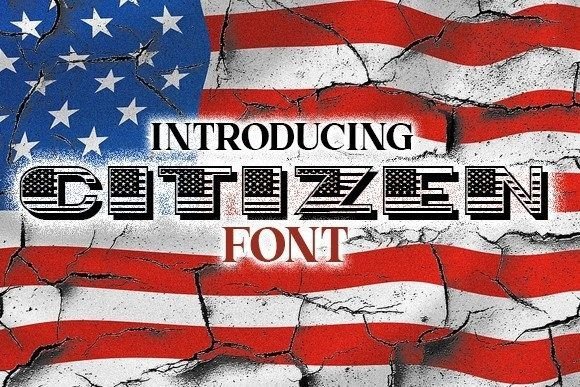
The Power of Typography: Unlocking the Beauty of Citizen Font
Have you ever stared at a blank page, trying to find the perfect font to bring your design to life? The search can be daunting, but what if I told you there’s a font that’s about to become your new best friend? Citizen Font is here to revolutionize the way you create stunning visuals, and trust me, it’s about to become your go-to choice.
This decorative font is a game-changer for designers, offering a unique blend of style and sophistication that’s perfect for posters, headlines, flags, and more. Whether you’re working on a personal project or a professional assignment, Citizen Font is sure to elevate your design to the next level. Its versatility and beauty make it a valuable asset for any designer looking to add a touch of personality to their work.
Citizen Font Key Features
- Unique Characteristic: Citizen Font features a unique blend of modern and vintage elements, making it suitable for a wide range of applications.
- Font Style: Citizen Font is available in both regular and bold styles, allowing for flexibility in design and layout.
Citizen Font Review
Overall, I’d say Citizen Font is a decent addition to any design library. There’s a certain charm to its unique blend of modern and classic elements. ✨ I particularly appreciate the font’s versatility, which makes it suitable for a wide range of applications, from body text to headings.
Here are some specific strengths:
- ✨ Clean and legible lines: Citizen Font is easy to read, even at smaller font sizes.
- ✨ Customizable: The font comes in various weights and styles, allowing designers to tailor the look to their specific needs.
- ✨ Friendly vibe: Citizen Font has a warm, approachable feel that works well for creative or informal projects.
However, there are some limitations:
- ⚠️ Limited language support: Citizen Font may not be as effective for languages that require more complex typography.
- ⚠️ May not be suitable for formal or high-end projects: The font’s playful nature might not be the best fit for more conservative or professional audiences.
Overall, I think Citizen Font is a solid choice for designers who want a modern, versatile font that’s easy to work with. While it may not be perfect for every project, it’s definitely worth considering for the right applications.
Citizen Font Practical Application Guide
Tips for Getting the Most Out of Citizen Font
For the best results, use Citizen Font in conjunction with a clean and simple design aesthetic. Avoid using too many different fonts or font sizes, as this can detract from the overall look of your design. Experiment with different font sizes and styles to find the perfect balance for your project.
Citizen Font is ideal for use in minimalist designs, such as logos, business cards, and social media graphics. It is also a great choice for use in digital displays, such as signage or kiosks. The font’s clean and modern design makes it perfect for use in a variety of applications where a clear and easy-to-read font is desired.